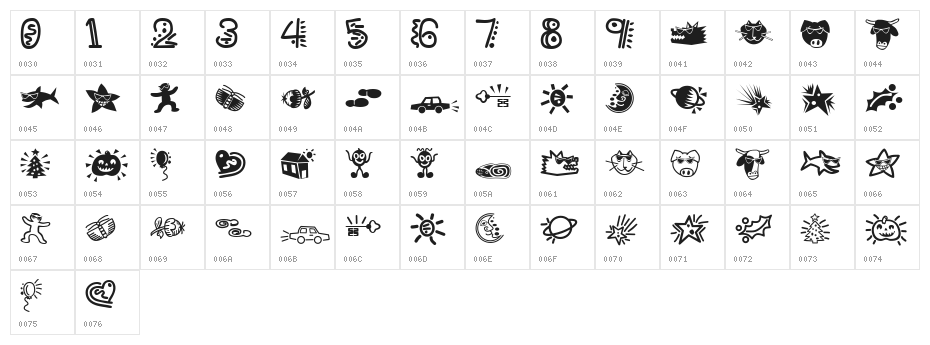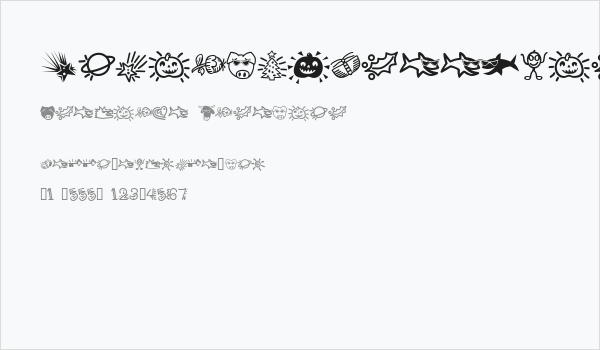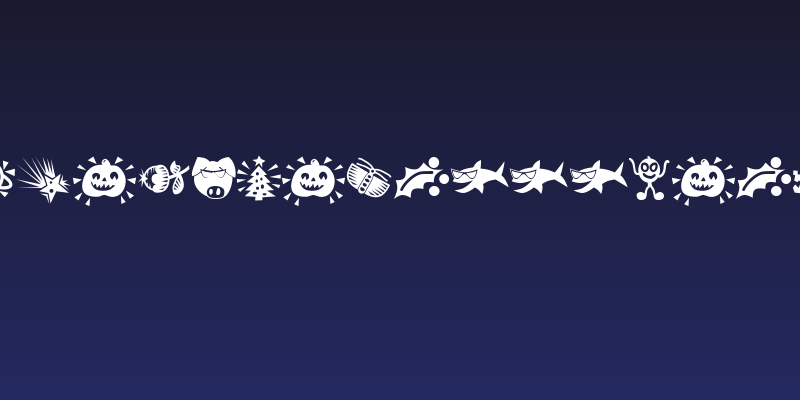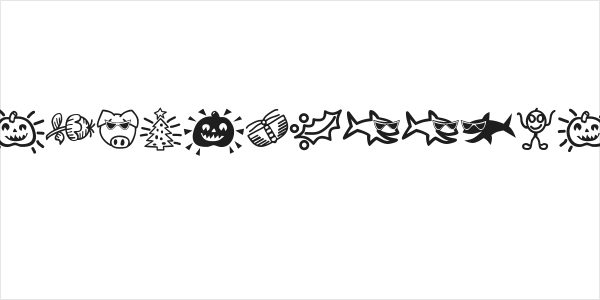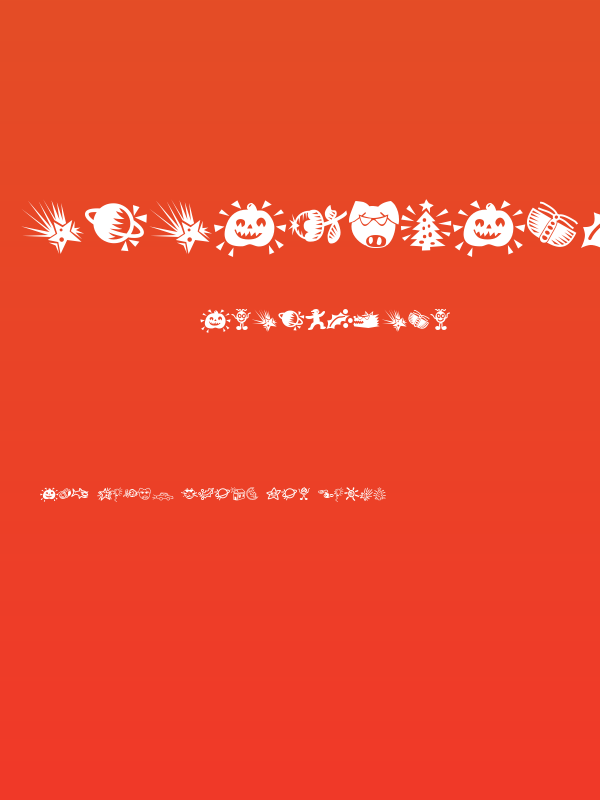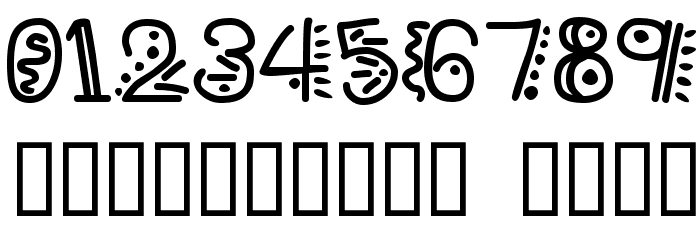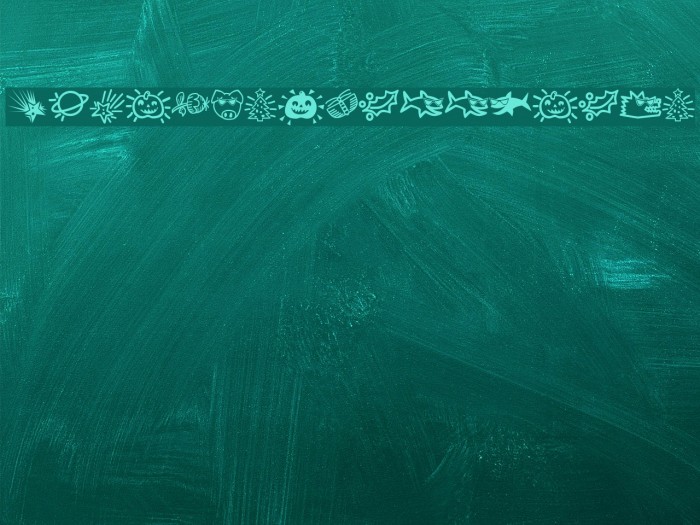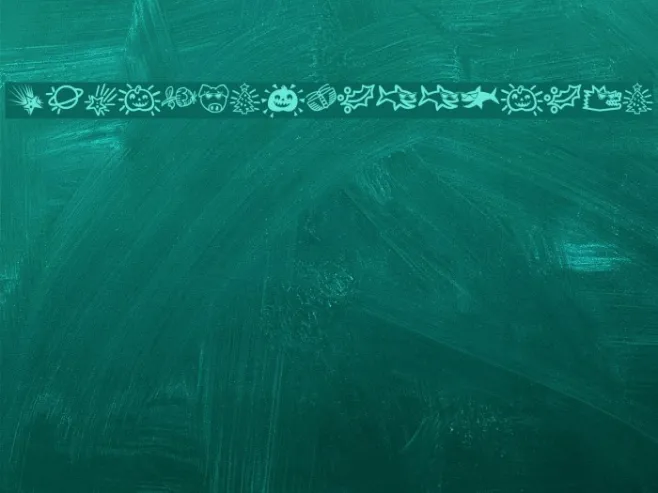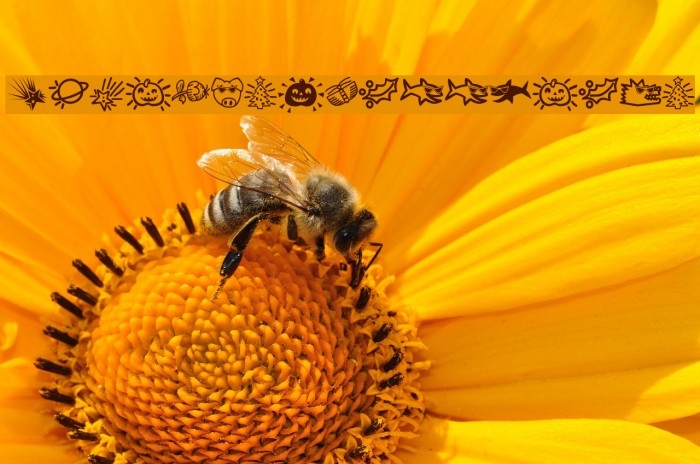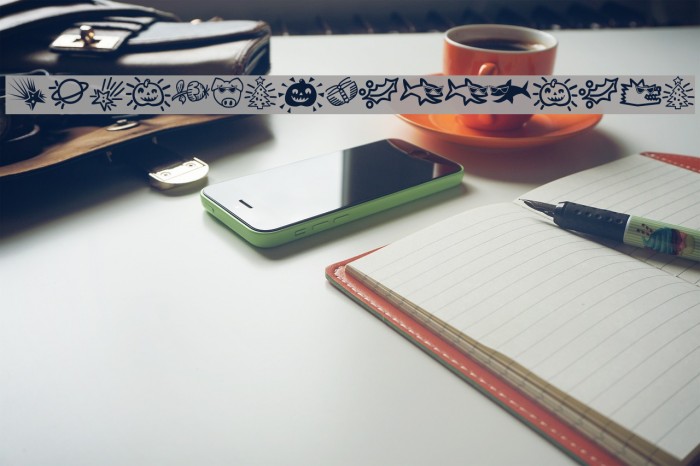
PopticsThreeExtras Font
PopticsThreeExtras Description
This font is a playful and whimsical collection of pictograms and numbers, featuring a variety of quirky and fun characters. The top rows are filled with cartoon-like icons, including animals, stars, and festive symbols, each with a unique and humorous design. The numbers are bold and rounded, with playful embellishments that add to the overall cheerful aesthetic. This font is perfect for projects that require a touch of humor and creativity, making it ideal for children's materials, party invitations, and playful branding. The icons are detailed and expressive, capturing a sense of fun and imagination.
| Use Case | Logos, Decorative elements, Children's materials |
| Proposed Projects | Ideal for children's books, party invitations, playful branding, and creative projects. |